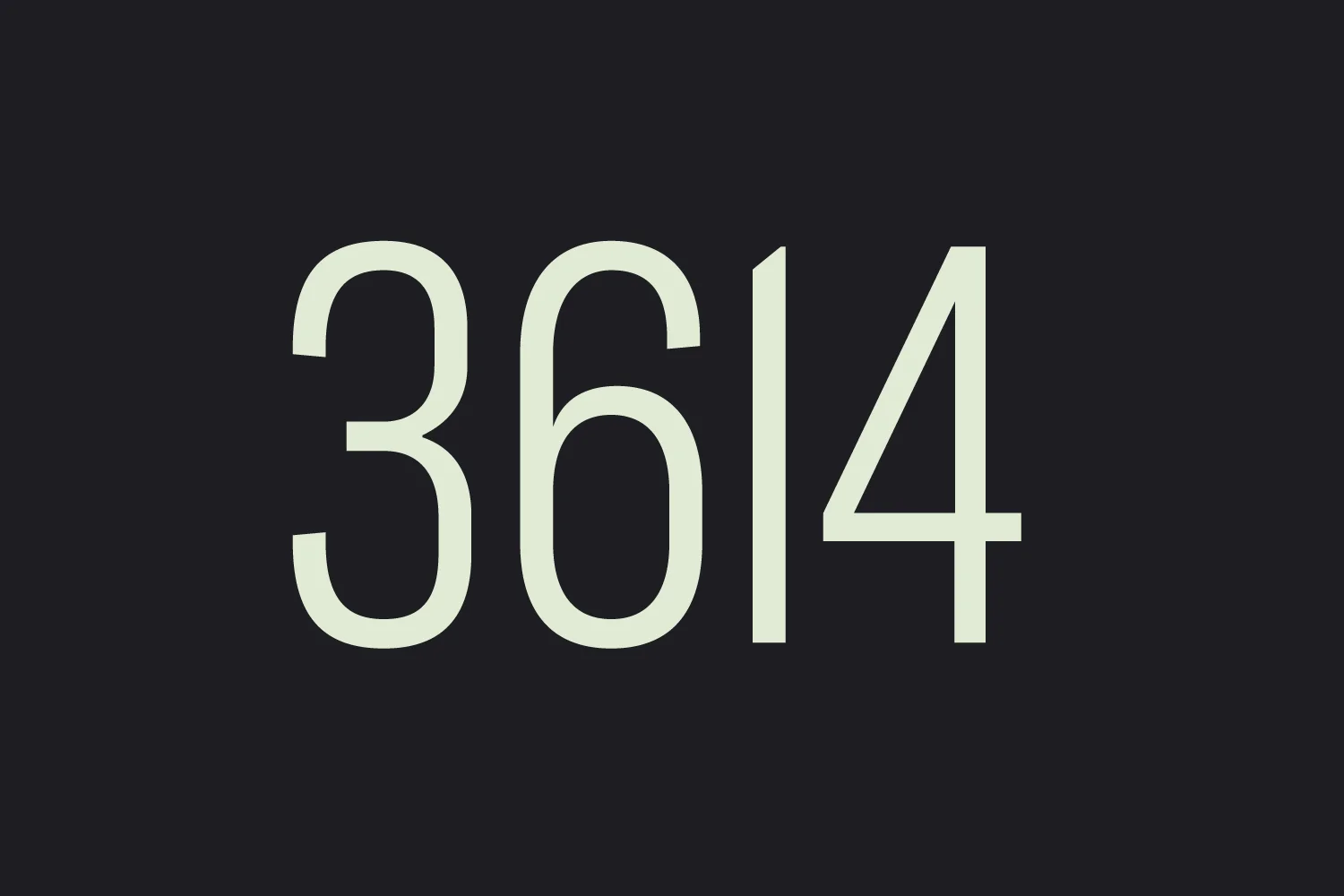
Americane Condensed
A condensed sans-serif from HvD Fonts drawn in the American grotesque tradition, suited to headline and display use.
Americane Condensed sits in the lineage of American gothic and grotesque display types, offering a narrow footprint suited to headlines, posters and tight editorial layouts. The condensed proportion allows for large-scale setting without sacrificing legibility at display sizes. Page content was unavailable at time of indexing, so weight and style details are inferred from the family name.
The name and condensed designation suggest a grotesque or gothic sans-serif in a condensed width, typical of American-style display grotesques.